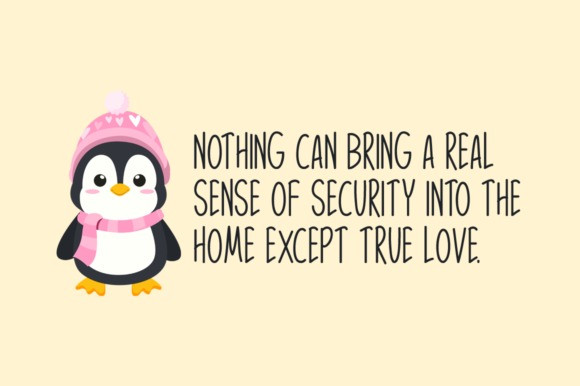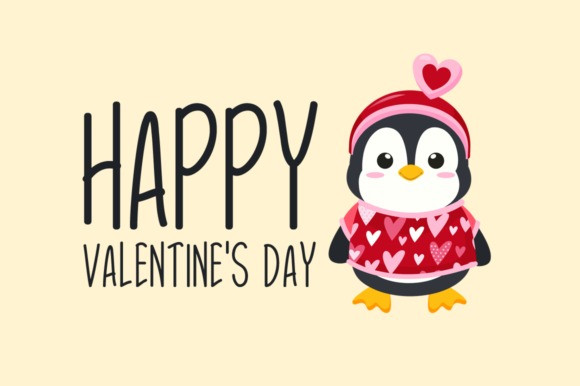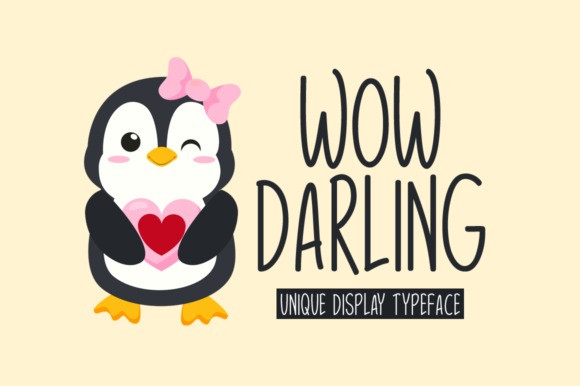
Wow Darling Display Font
Wow Darling is a narrow and simple handwritten font. It fits a wide range of casual or friendly designs. Whether you’re using it for crafting, digital designing, presentations or greeting cards making, it’s perfect!